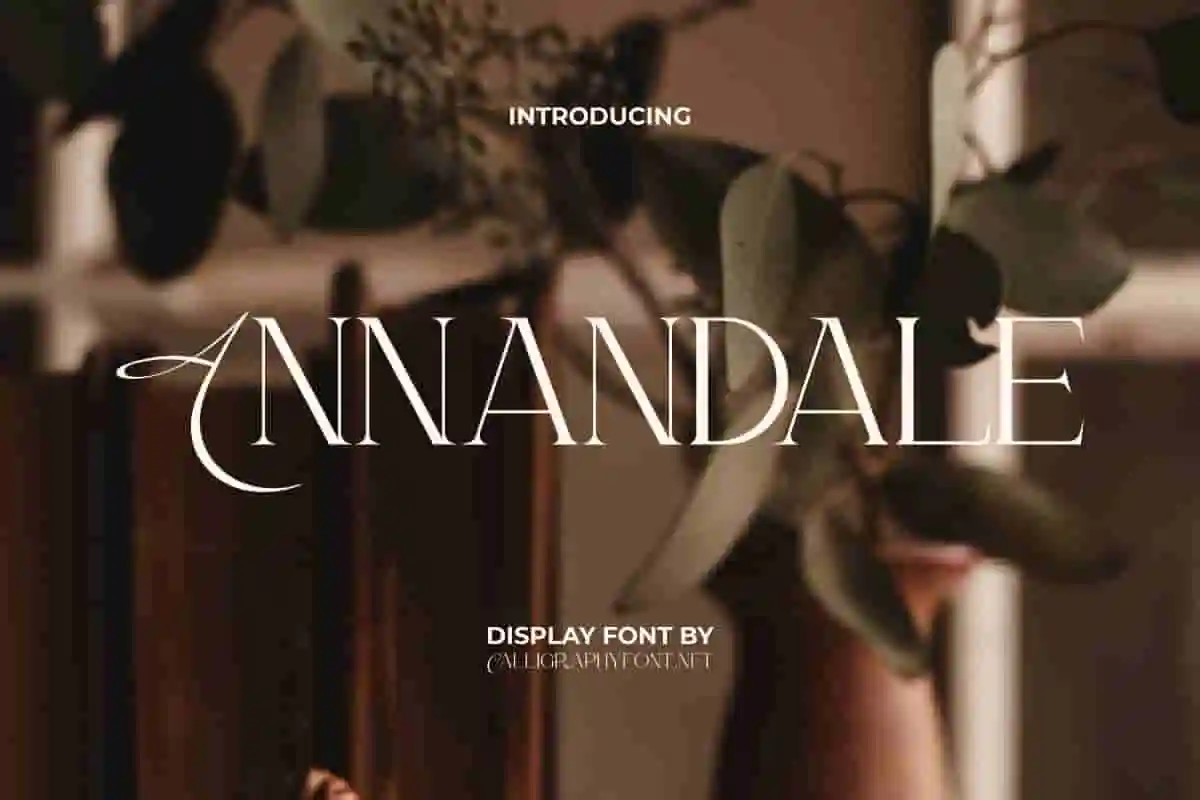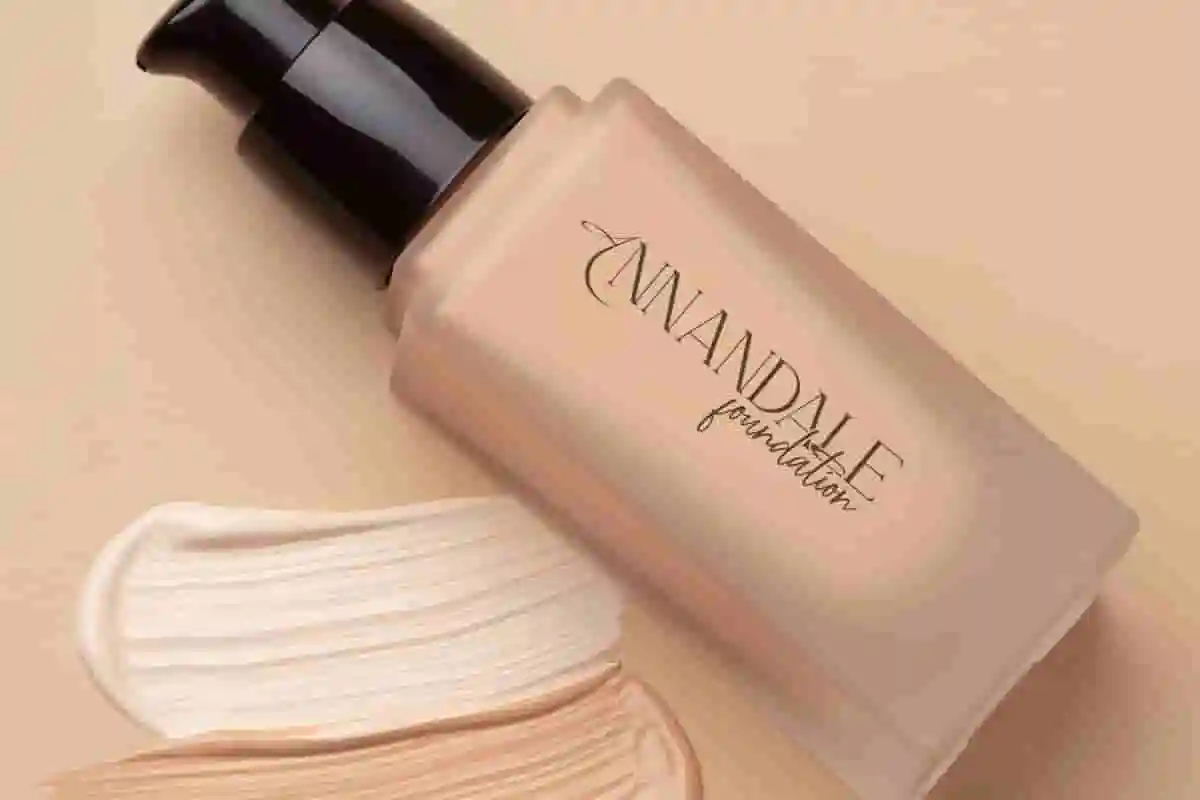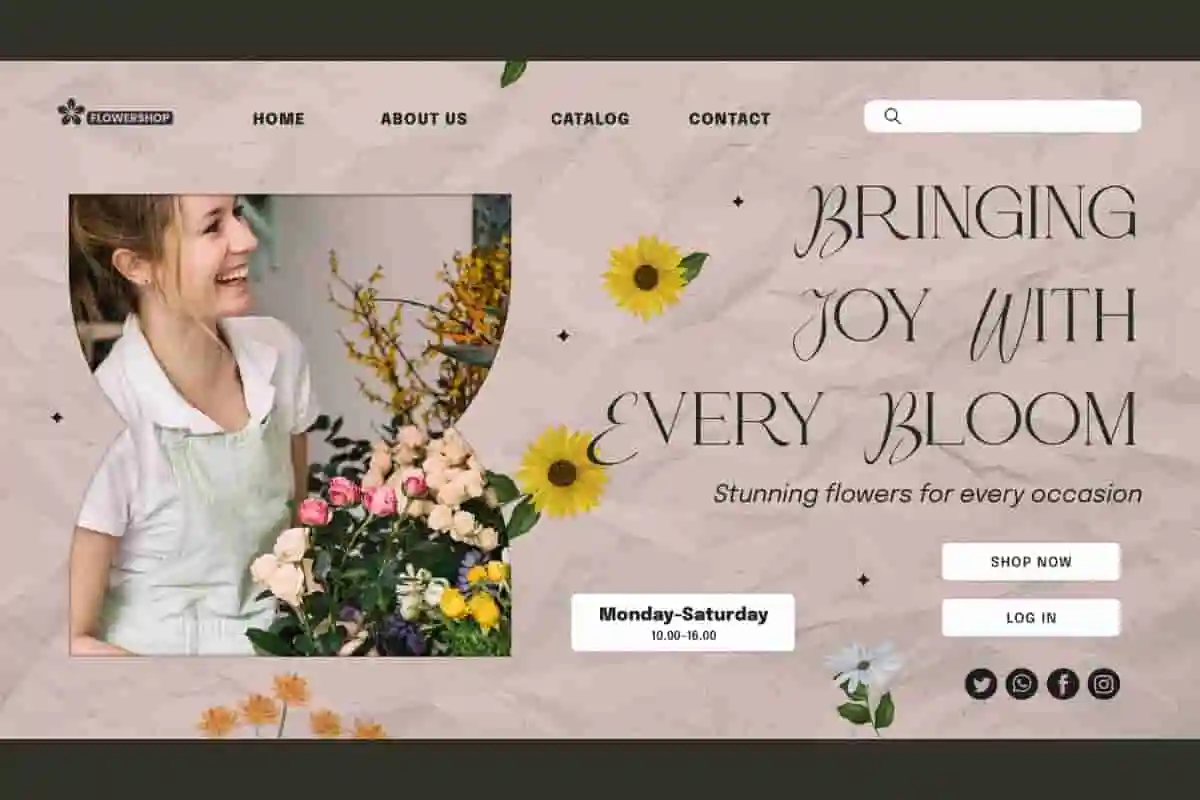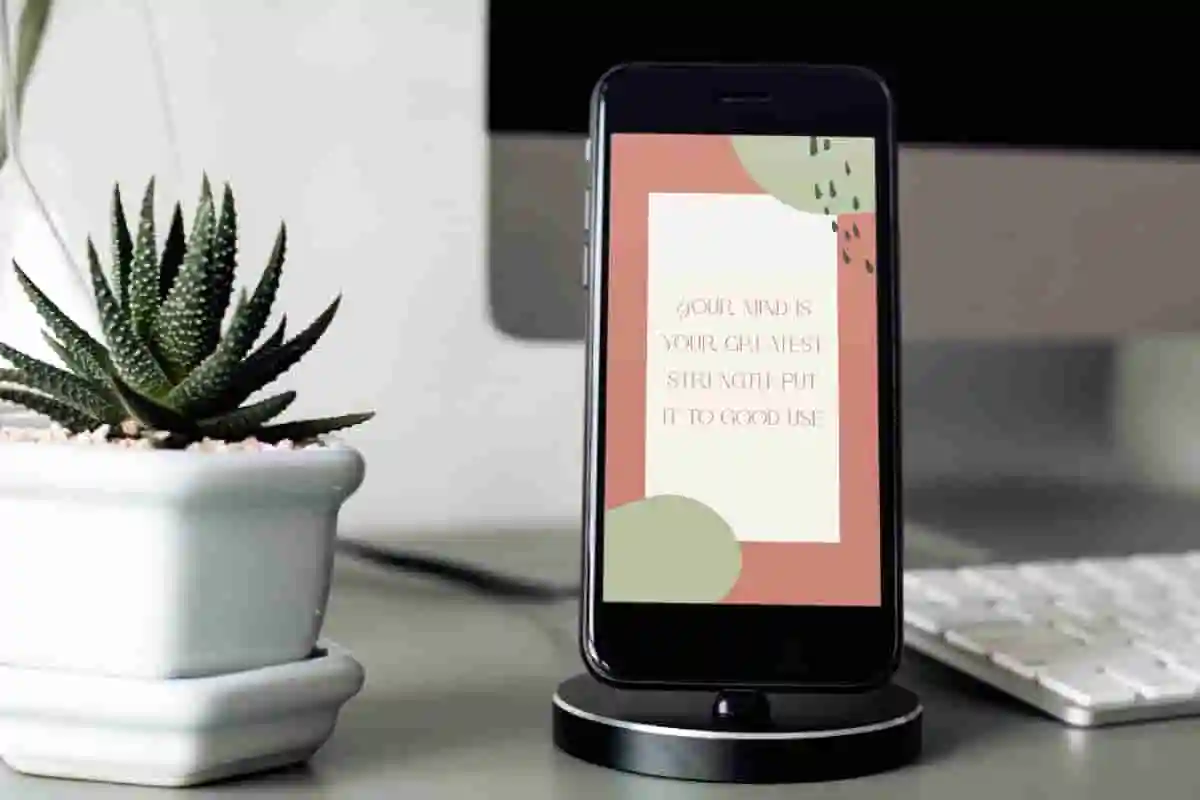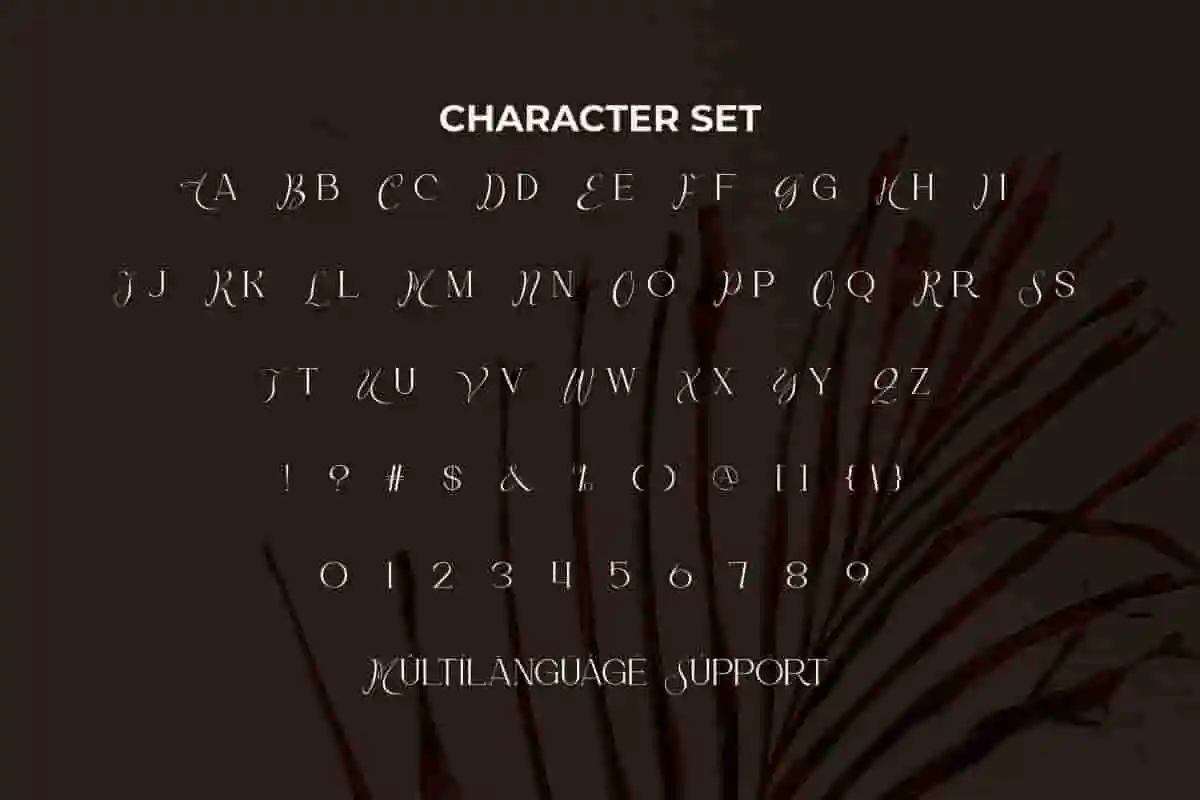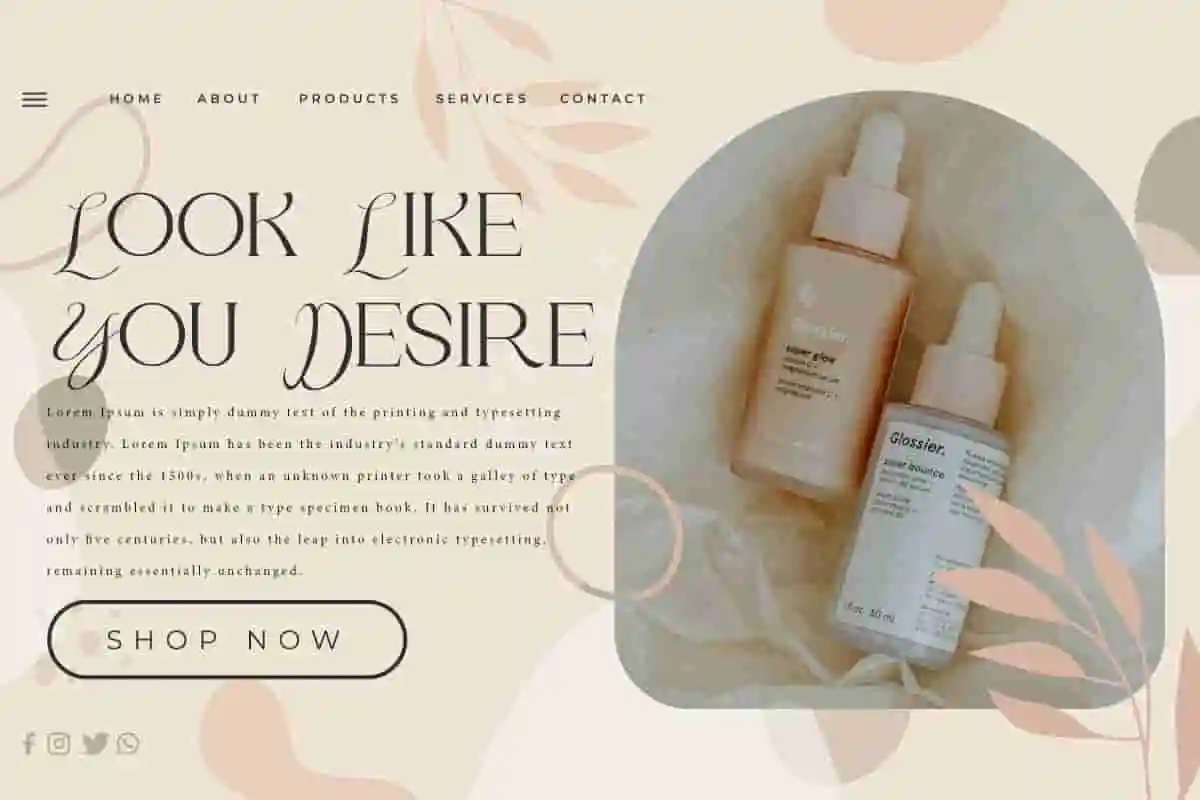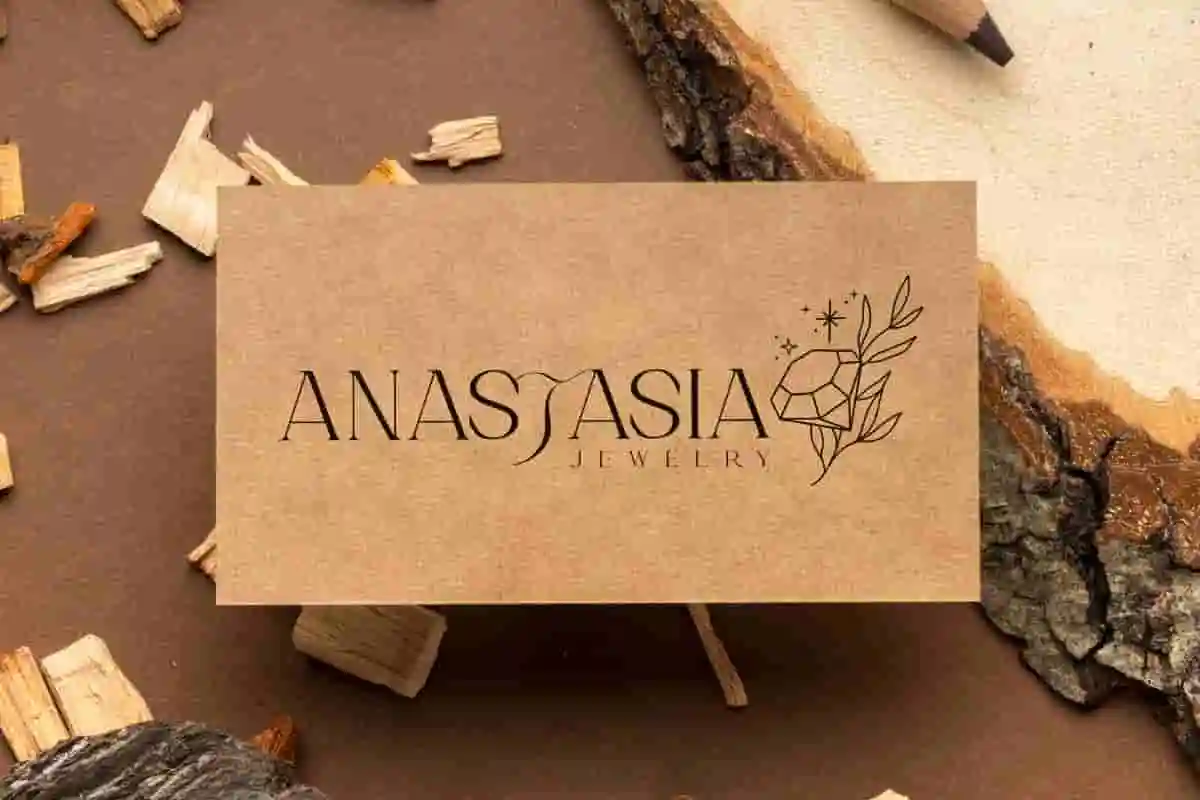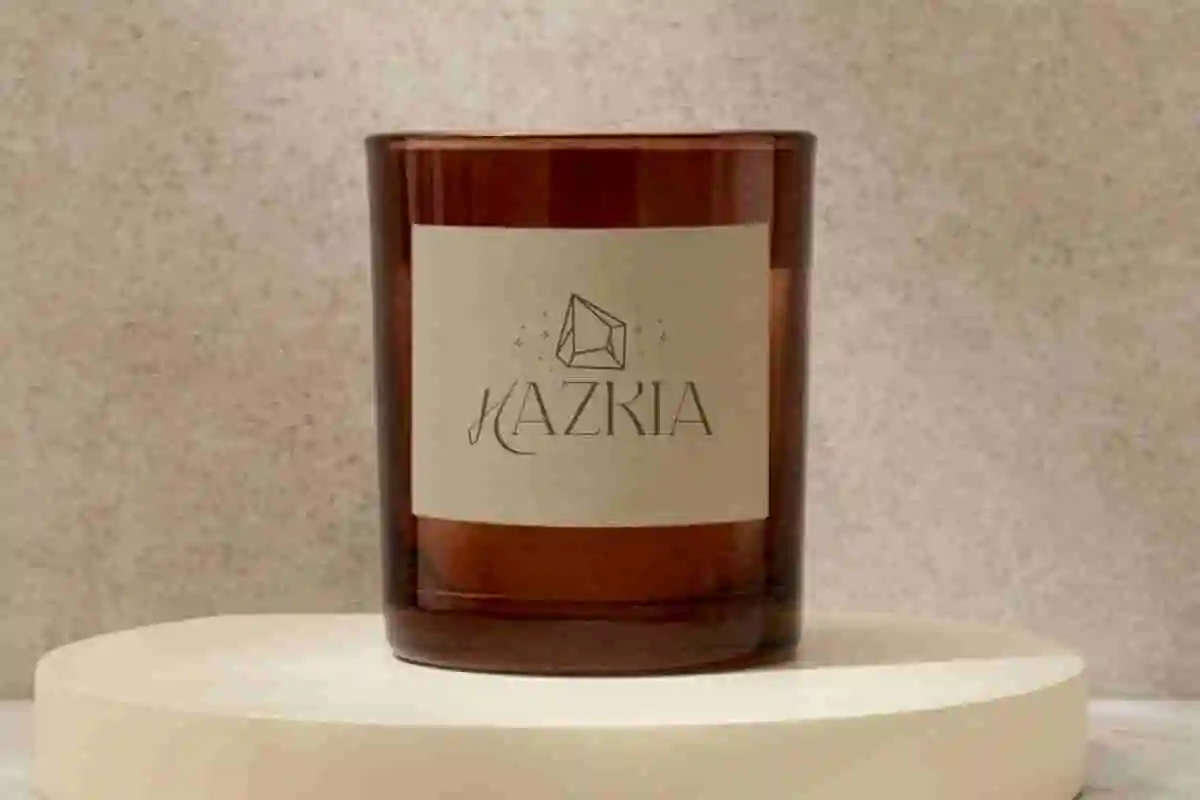
Annandale Display Font
Annandale Font is a sophisticated serif display that presents the feel of classy professional letters. It is easy to use so it makes your work attractive, fashionable, premium, and reaches a high level!
Annandale Font is a sleek and elegant serif display font. It’s a sophisticated serif display that presents the feel of classy professional letters. Beautiful letter characters with a balanced look between modern basics and charming twists wrapped into one. It fits perfectly with blogs, book titles, brand names, business cards, company logos, invitation, label products, movie titles, quotes, stickers, watermarks, websites, and various other designs.
Looking for a font that blends classic beauty with a modern edge? Introducing Annandale Display Font, a timeless typeface designed to bring elegance, strength, and sophistication to every project. Perfectly suited for logos, branding, editorial design, packaging, and social media graphics, Annandale is a high-impact serif display font that commands attention without shouting.
Make a lasting impression with Annandale Display Font, a bold yet elegant typeface designed to elevate your visual identity. Whether you’re building a luxury brand, designing striking headlines, or crafting eye-catching packaging, Annandale adds an instant touch of class and confidence to your project. This serif display font combines vintage charm with a contemporary edge. Its strong lines, elegant curves, and sharp serifs make it a powerful choice for designers who want to balance tradition with modernity.
In a world full of noise, your design deserves a voice that stands out — strong, refined, and unforgettable. Meet Annandale Display Font, a bold serif typeface crafted for creators who demand elegance with impact. Annandale blends vintage sophistication with a modern attitude, making it the perfect choice for high-end branding, editorial layouts, product packaging, and social media design.
- Elegant & Bold Design
Annandale Font is an awesome font that provides a fancy and unique style at the same time. It’s perfect for clothing brand, cafeteria, cosmetic, event organizer, film, florist, furniture, graphic design, handicraft, home decoration, jewelry, lounge, makeup artist, photography, restaurant, skincare, etc. The typography is perfect for creating a chic lifestyle design.
Annandale Font comes with a complete set of Uppercase and Lowercase Basic Characters in slightly different appearances, Numbers, a large range of Punctuation, and Symbols. It is supported with multilingual characters and ready to use both on Windows machine or Mac with simple installations. It’s tested to work well in the Adobe Apps (Illustrator, Adobe InDesign, Adobe Photoshop) CorelDraw, and others. PUA Encode Characters means you can access all the characters easily – Fully accessible without additional design software.